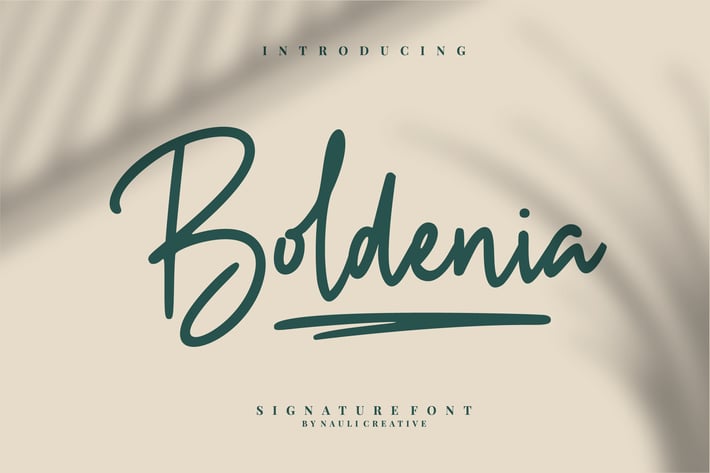
Boldenia - Bold Handwriting Signature Font
Are you looking for a simple and elegant bold handwriting signature font? We can help! Try to download our Boldenia Handwritten Signature Font. The font is suitable to use for all casual purpose. Try to use it on Wedding invitation, greeting card, poster, postcard, photography, branding, editorial, and signature to see the best of it :)